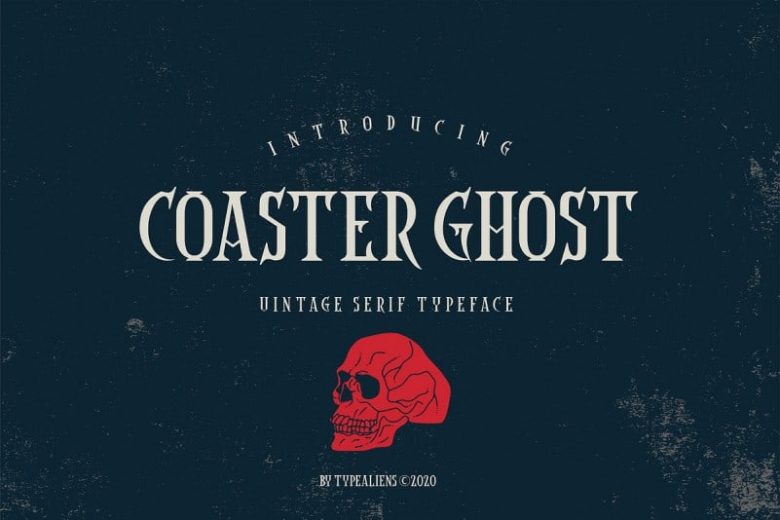
Coaster Ghost Vintage Font
COASTER GHOST is a serif type font that is quite rigid, suitable for badge design, as well as for logo design, logotype, as the title font or as a supporting font. Impression of the stiffness so this font seems a bit gothic and certainly vintage.